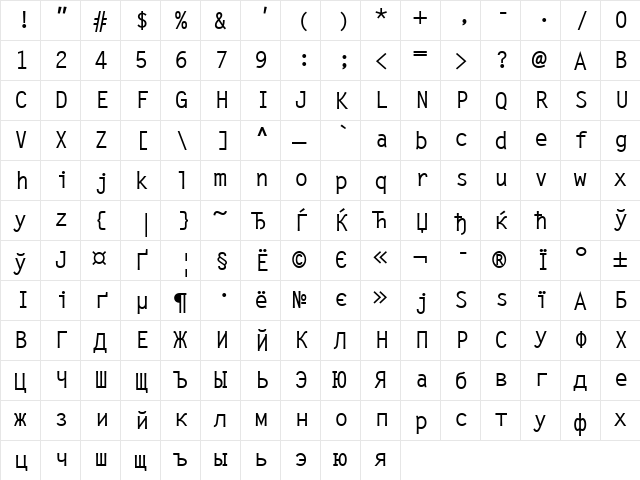
LetterGotLCYMed Regular
Design Context for LetterGotLCYMed Typeface
LetterGotLCYMed offers clean, dependable letterforms without strong stylistic allegiance, making it a practical choice for designers who need flexibility.